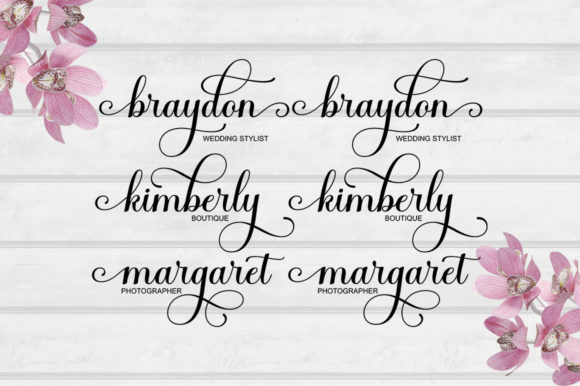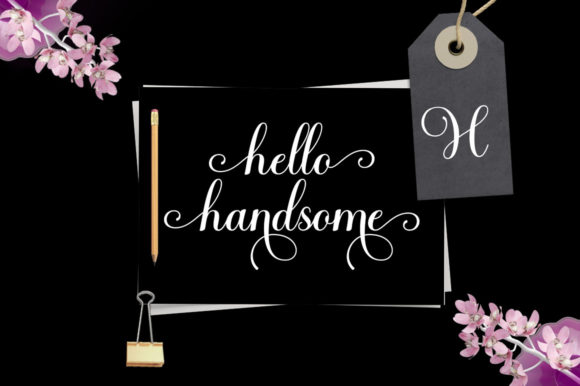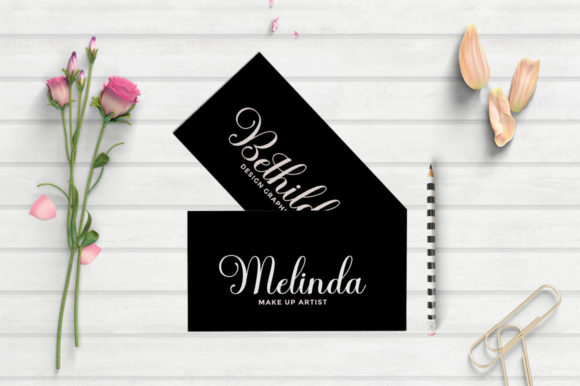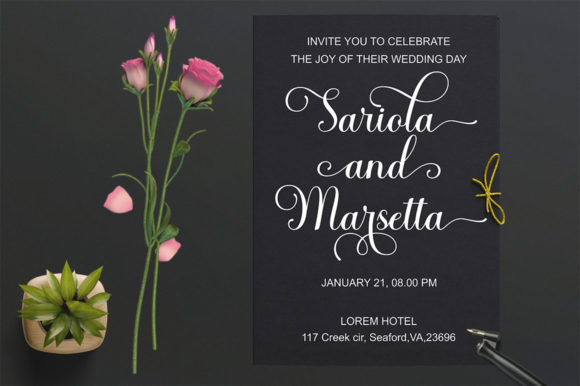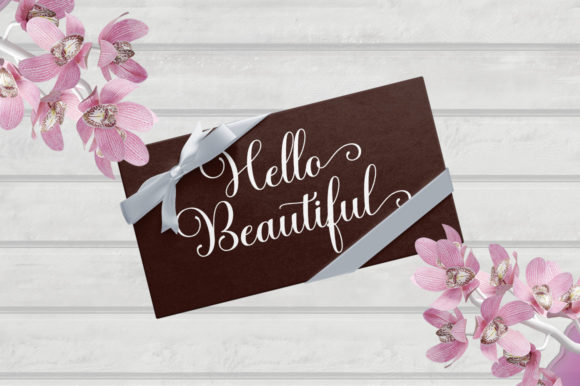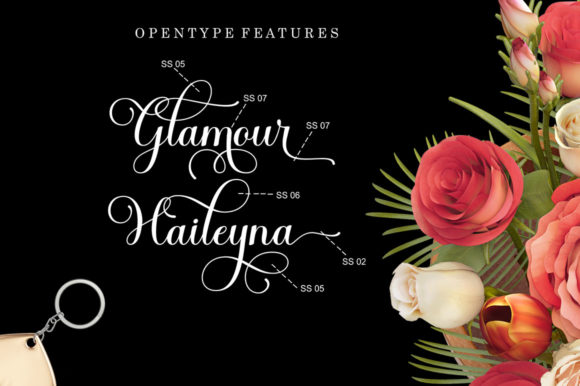
Discover the Elegance of Haileyna Font: Elevate Your Designs with Authentic Flair
In the realm of typography, few fonts capture the essence of elegance and charm as effectively as Haileyna. This beautiful script typeface has been making waves among designers and crafters alike, and for good reason. Haileyna boasts an array of stunning features, including gorgeous alternates, ligatures, and swashes, that can instantly elevate your designs from ordinary to extraordinary.
The Authentic Feel of Haileyna
One of the standout qualities of Haileyna is its authentic feel. This font exudes a sense of classic sophistication, reminiscent of handwritten calligraphy from a bygone era. Yet, despite its traditional roots, Haileyna also possesses a modern flair that makes it incredibly versatile. Whether you’re looking to create wedding invitations, stationary art, social media posts, or greeting cards, Haileyna provides the perfect blend of elegance and approachability.
Exploring the Features of Haileyna
So, what makes Haileyna such a powerful tool for designers? Let’s take a closer look at some of its key features:
- Alternates: Haileyna offers a range of alternate characters, allowing you to customize your text and add a touch of uniqueness to your designs.
- Ligatures: The font includes beautiful ligatures that seamlessly connect letters, creating a fluid and natural look.
- Swashes: With its elegant swashes, Haileyna enables you to add a decorative touch to your typography, perfect for headings, titles, and emphasis.
Creative Applications of Haileyna
Haileyna’s versatility is one of its most compelling attributes. Here are just a few examples of how you can use this stunning font in your designs:
Wedding Invitations
Create breathtaking wedding invitations that set the tone for a memorable occasion. Haileyna’s elegant script and beautiful swashes make it the perfect choice for couples looking to add a touch of sophistication to their wedding stationery.
Stationary Art
From letterheads to journals, Haileyna can add a touch of class to any piece of stationary art. Its unique character and charm make it an excellent choice for designers looking to create something truly special.
Social Media Posts
Make your social media posts stand out from the crowd with Haileyna. Whether you’re creating promotional content, quotes, or simply want to add some personality to your posts, this font is sure to grab attention.
Greeting Cards
Add a personal touch to your greeting cards with Haileyna. Its beautiful script and range of alternates, ligatures, and swashes make it perfect for creating unique and heartfelt messages.
Why Designers and Crafters Love Haileyna
So, why has Haileyna become a favorite among designers and crafters? Here are just a few reasons:
- Ease of Use: Despite its sophisticated look, Haileyna is incredibly easy to use, even for those new to design.
- Customization: With its range of alternates, ligatures, and swashes, Haileyna offers endless opportunities for customization.
- Versatility: Whether you’re working on a commercial project or a personal craft, Haileyna adapts seamlessly to any design style.
Haileyna is more than just a font – it’s a tool for creativity, a means to add elegance and charm to your designs. Whether you’re a seasoned designer or a crafter looking to add a professional touch to your work, Haileyna is sure to exceed your expectations. With its authentic feel, stunning features, and versatility, Haileyna is the perfect choice for anyone looking to elevate their designs and create something truly memorable.